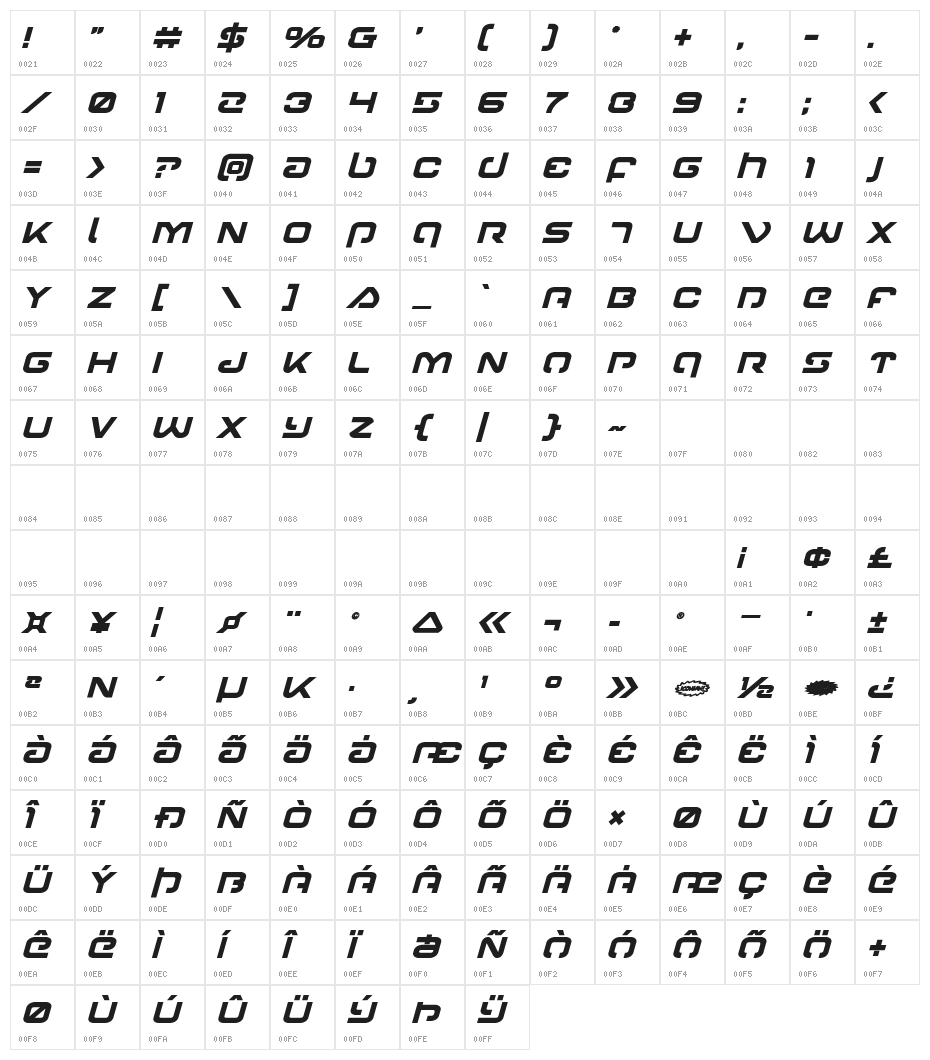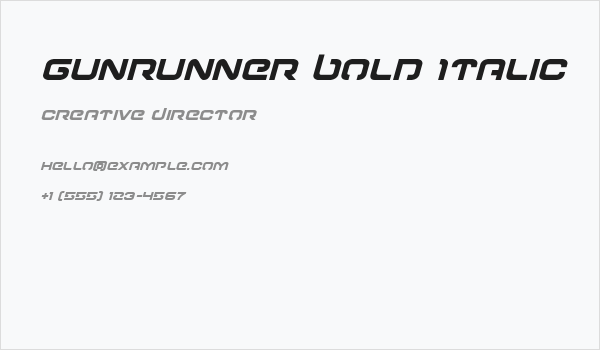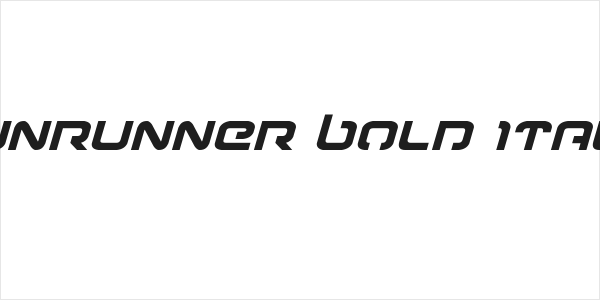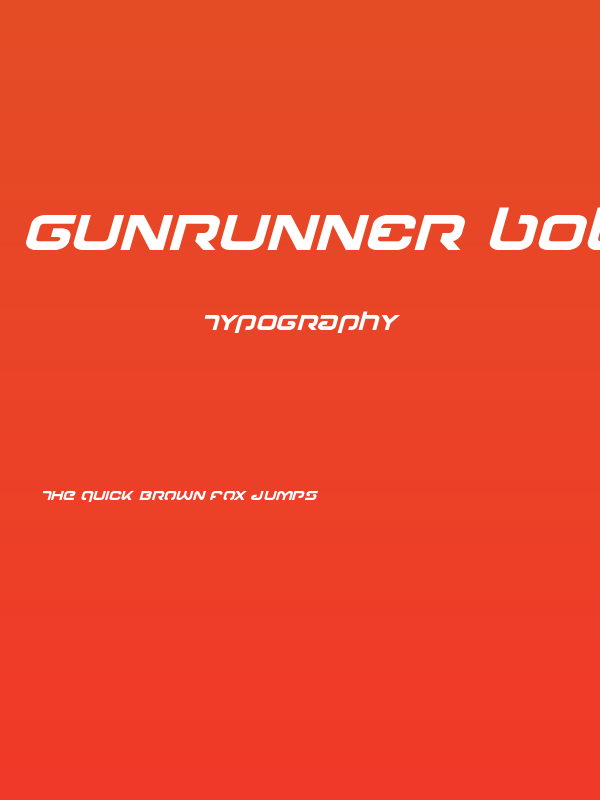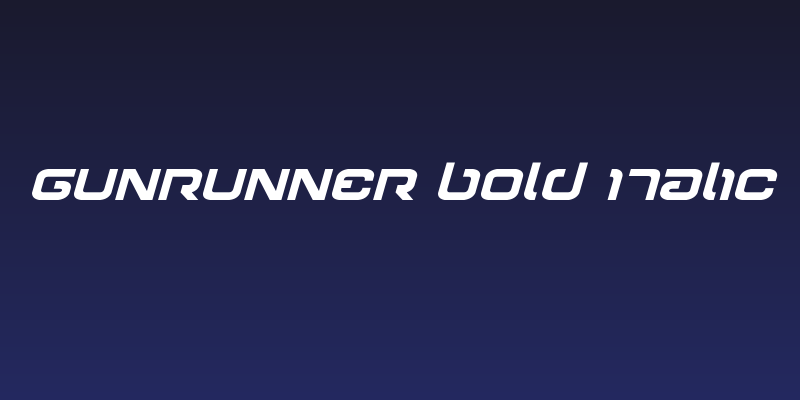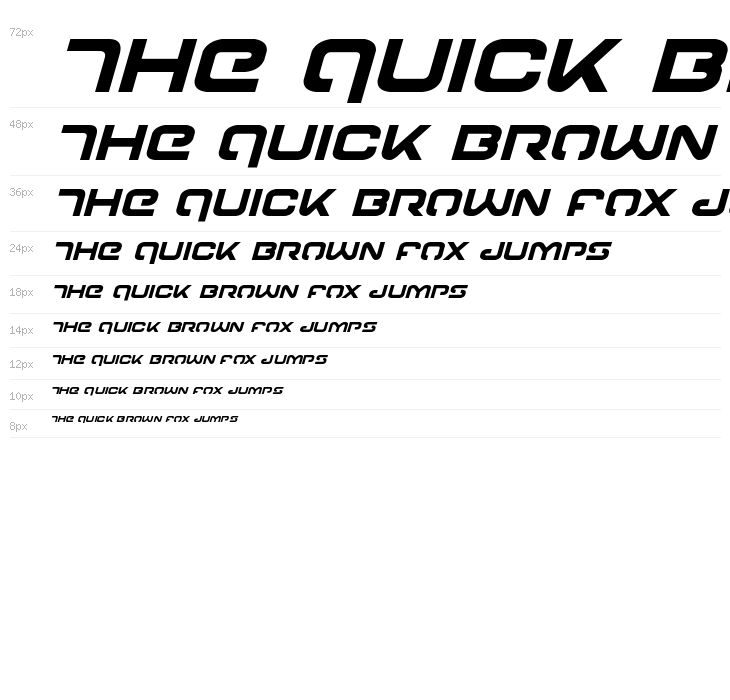
Gunrunner Bold Italic Font
Gunrunner Bold Italic Description
This font features a bold and italicized style with a futuristic and dynamic appearance. The characters are slightly slanted, giving a sense of motion and speed. The strokes are thick and consistent, contributing to its boldness. The design includes sharp angles and clean lines, creating a modern and edgy look. The uppercase and lowercase letters maintain a uniform style, while the numerals and special characters are designed to complement the overall aesthetic. This font is ideal for projects that require a strong and impactful visual presence.